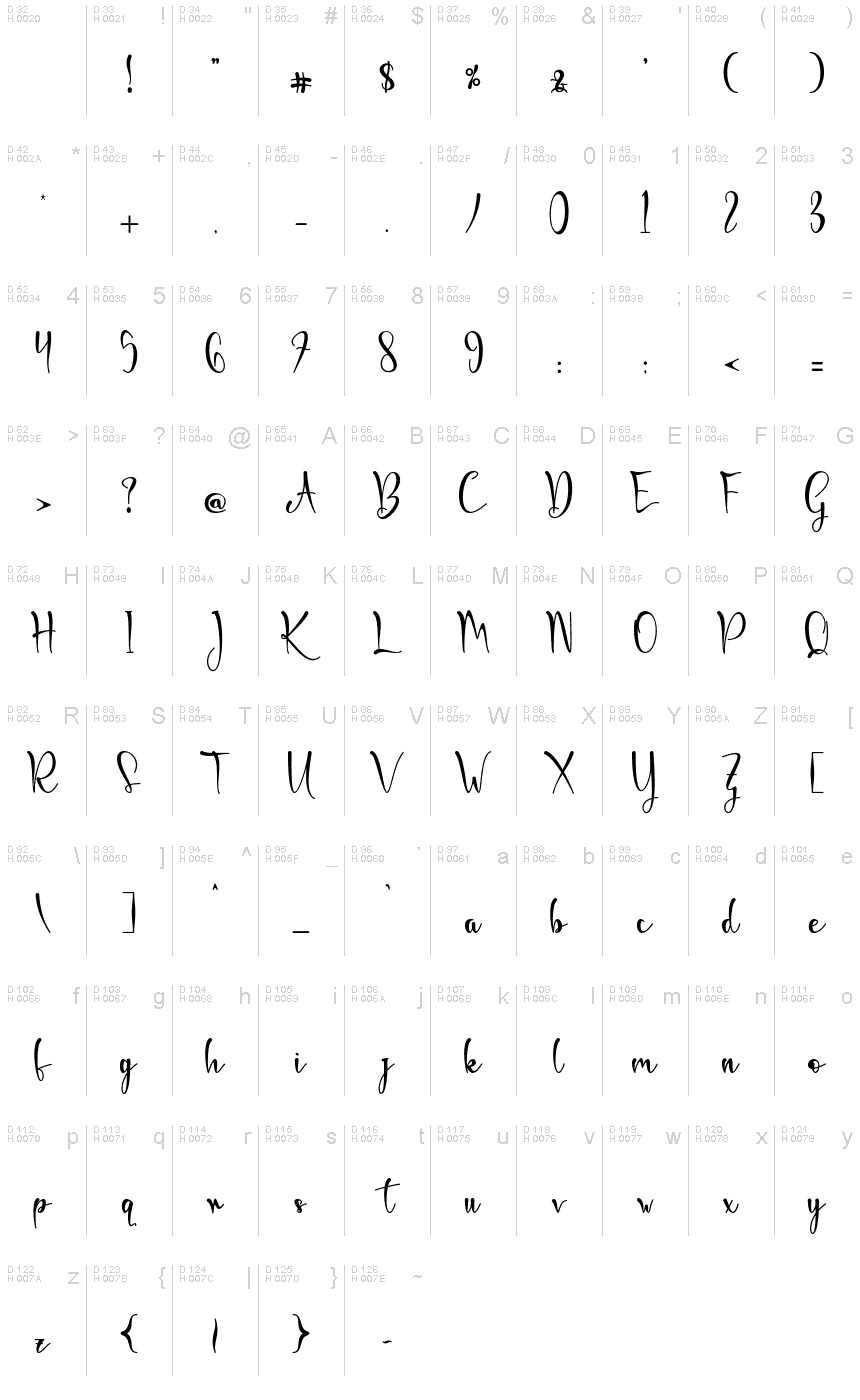
Ghilby-PERSONAL USE
Ghilby script font by Arkrist Letter is a modern handwriting that is designed with great care so that it creates beautiful letter lines, looks elegant and very beautiful.
Ghilby is inspired by the word "Gilby" which means auspiciousness.
Ghilby font is very suitable for wedding invitations, greeting cards, promotions, designs, etc.